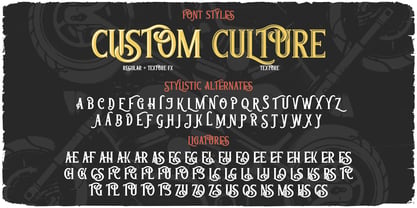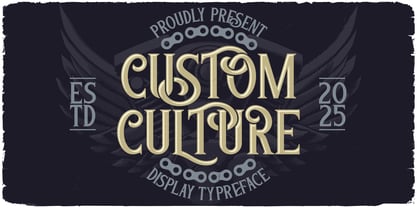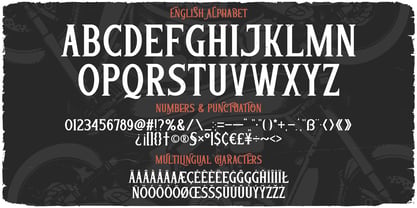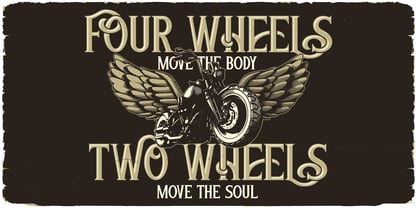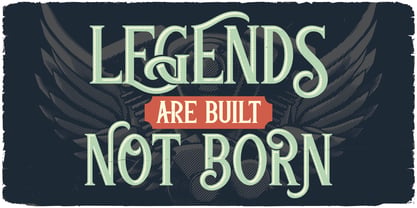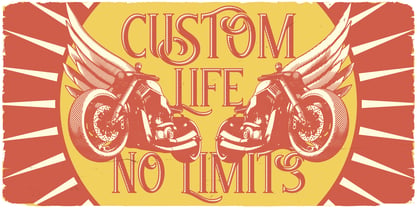
Custom Culture
by Vozzy
The Custom Culture Font Family was designed by Oleg Voznyy and published by Vozzy. Custom Culture contains 3 styles and family package options. More about this family
Introducing the striking font family "Custom Culture," designed specifically for headlines, accent inscriptions, and capturing attention. This unique typeface features a wide array of additional characters, punctuation marks, and multilingual options, making it versatile for various design needs. With an extensive selection of standard ligatures, ensure your software supports this OpenType feature to fully utilize its capabilities. "Custom Culture" is perfect for branding, web design, and editorial projects, adding a distinctive flair to your beautiful designs!
Designers: Oleg Voznyy
Foundry: Vozzy